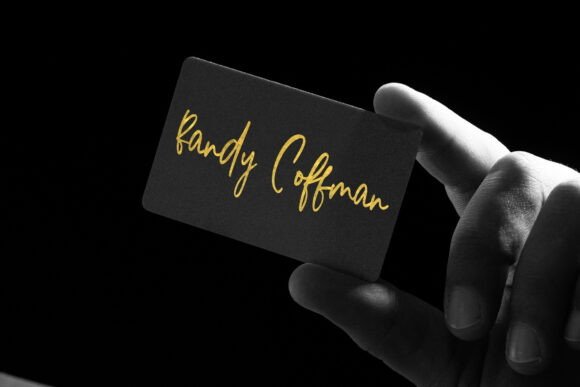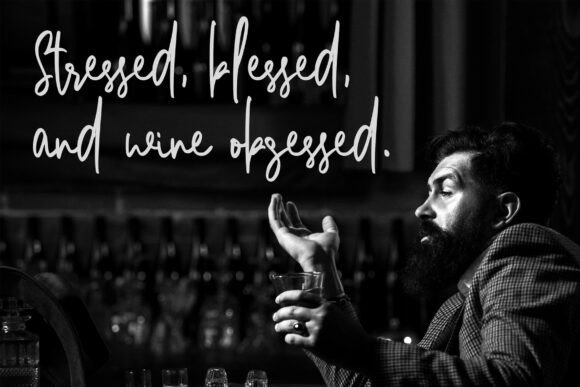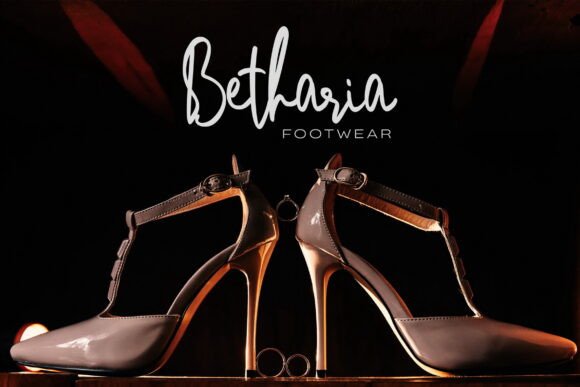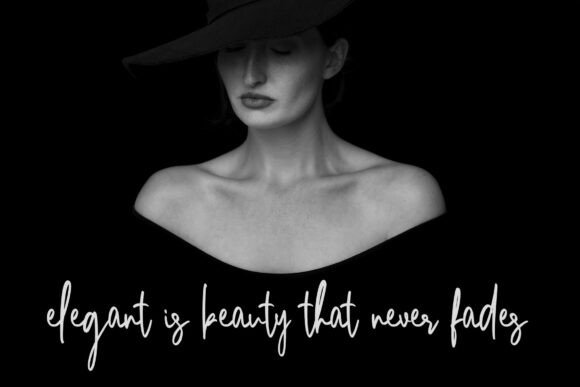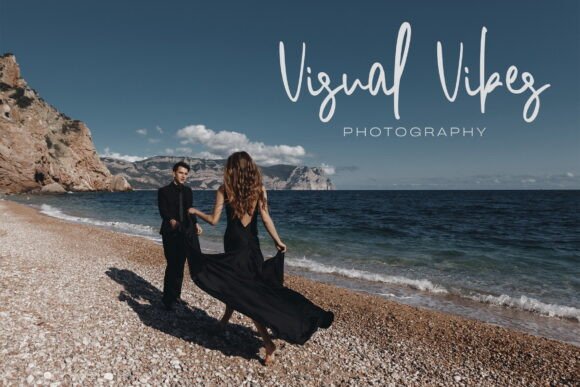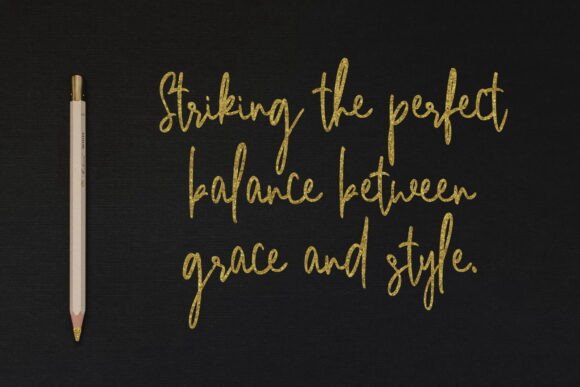
**Bonehead Script Font**
Bonehead Script is a stylish and versatile script font, perfect for adding a personal touch to your design projects. With its flowing and elegant style, this font is ideal for invitations, greeting cards, logos, branding, quotes, and web design. Bonehead Script will give an elegant and classy impression to each of your work.
What Makes Bonehead Script Font Special?
Bonehead Script Font stands out from other script fonts due to its unique and elegant style. The font features:
- Flowing and connected letters: The font has a beautiful, flowing connection between letters, creating a smooth and harmonious look.
- Elegant and classy style: Bonehead Script has a sophisticated and refined style, perfect for designs that require a touch of luxury and sophistication.
- Versatile and adaptable: The font can be used for a wide range of design projects, from invitations and greeting cards to logos, branding, and web design.
Use Cases for Bonehead Script Font
Bonehead Script Font can be used in various design projects, including:
- Invitations: Create beautiful and elegant invitations for weddings, parties, and other special events.
- Greeting cards: Design stunning greeting cards for birthdays, holidays, and other occasions.
- Logos and branding: Use Bonehead Script to create a unique and memorable logo for your brand, giving it a touch of elegance and sophistication.
- Quotes and typography: Add a touch of style to your quotes and typography with Bonehead Script, making them stand out and visually appealing.
- Web design: Use Bonehead Script to add a touch of elegance and sophistication to your website, making it more visually appealing and engaging.
Benefits of Using Bonehead Script Font
Using Bonehead Script Font in your design projects offers several benefits, including:
- Unique and distinctive look: Bonehead Script gives your designs a unique and distinctive look, setting them apart from others.
- Elegant and sophisticated style: The font adds a touch of elegance and sophistication to your designs, making them more visually appealing.
- Improved readability: Bonehead Script is designed to be easy to read, making it perfect for body text and other written content.
- Customizable: The font can be customized to fit your design needs, allowing you to adjust the size, color, and style to suit your project.
Tips for Using Bonehead Script Font
To get the most out of Bonehead Script Font, follow these tips:
- Use it sparingly: Use Bonehead Script sparingly to add emphasis and create visual interest in your designs.
- Pair it with other fonts: Pair Bonehead Script with other fonts to create a unique and visually appealing typography combination.
- Adjust the size and color: Adjust the size and color of Bonehead Script to fit your design needs and create visual hierarchy.
- Experiment with different styles: Experiment with different styles and variations of Bonehead Script to find the one that works best for your design.
Bonehead Script Font is a stylish and versatile script font that can add a touch of elegance and sophistication to your design projects. With its flowing and connected letters, elegant style, and versatility, it’s perfect for invitations, greeting cards, logos, branding, quotes, and web design. By following the tips and guidelines outlined in this article, you can get the most out of Bonehead Script and create stunning designs that stand out.